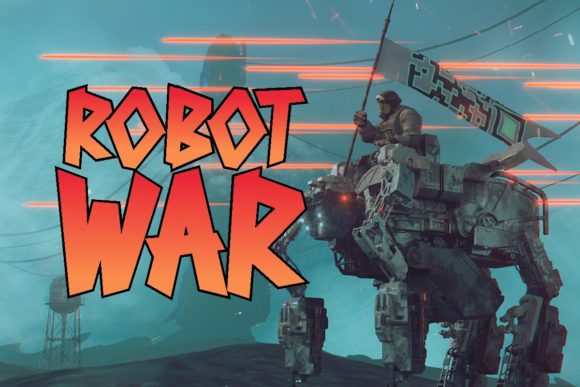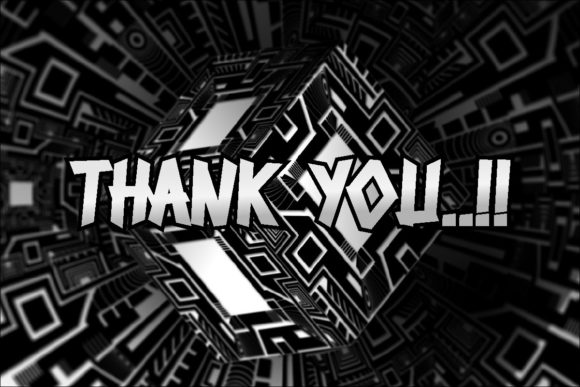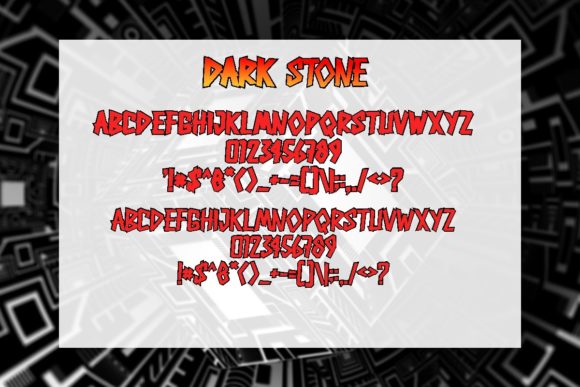
Unleash Your Creativity with Dark Stone Font: A Bold and Thick Lettered Display Font
Are you a designer or crafter looking for a font that can add a touch of boldness and thickness to your designs? Look no further than the Dark Stone Font. This display font is perfect for creating eye-catching designs that demand attention. In this article, we’ll explore the features and benefits of Dark Stone Font, and how it can elevate your designs to the next level.
What is Dark Stone Font?
Dark Stone Font is a bold and thick lettered display font that is designed to make a statement. Its sturdy and robust letterforms make it perfect for designs that require a strong and confident look. Whether you’re creating a logo, advertisement, or t-shirt design, Dark Stone Font is sure to grab attention and leave a lasting impression.
Key Features of Dark Stone Font
- Bold and Thick Letterforms: Dark Stone Font features bold and thick letterforms that are designed to stand out. Its sturdy and robust design makes it perfect for creating eye-catching designs.
- Versatile: Dark Stone Font is a versatile font that can be used for a wide range of designs, including t-shirts, sportswear, logos, advertisements, clothing, and more.
- Easily Readable: Despite its bold and thick design, Dark Stone Font is easily readable, making it perfect for designs that require a clear and concise message.
- Unique and Distinctive: Dark Stone Font has a unique and distinctive look that sets it apart from other fonts. Its bold and thick letterforms make it perfect for creating designs that demand attention.
Benefits of Using Dark Stone Font
So, why should you use Dark Stone Font for your designs? Here are just a few benefits of using this amazing font:
- Grabs Attention: Dark Stone Font is designed to grab attention and make a statement. Its bold and thick letterforms ensure that your designs stand out from the crowd.
- Perfect for Bold Designs: If you’re looking to create bold and eye-catching designs, Dark Stone Font is the perfect choice. Its sturdy and robust design makes it perfect for designs that require a strong and confident look.
- Increases Brand Visibility: By using Dark Stone Font, you can increase brand visibility and create a lasting impression on your target audience.
- Easy to Use: Dark Stone Font is easy to use and can be easily integrated into your designs. Its simplicity and versatility make it perfect for designers and crafters of all levels.
Design Ideas Using Dark Stone Font
So, how can you use Dark Stone Font in your designs? Here are just a few ideas to get you started:
- T-Shirt Designs: Dark Stone Font is perfect for creating bold and eye-catching t-shirt designs. Its sturdy and robust design makes it perfect for creating designs that demand attention.
- Logo Designs: If you’re looking to create a bold and confident logo, Dark Stone Font is the perfect choice. Its bold and thick letterforms make it perfect for creating logos that stand out.
- Advertisements: Dark Stone Font is perfect for creating eye-catching advertisements that demand attention. Its bold and thick design makes it perfect for creating ads that grab attention and leave a lasting impression.
- Sportswear Designs: Dark Stone Font is perfect for creating bold and eye-catching sportswear designs. Its sturdy and robust design makes it perfect for creating designs that demand attention.
| Font Name | Dark Stone Font |
| Author | Pidco.art |
In conclusion, Dark Stone Font is a bold and thick lettered display font that is perfect for designers and crafters looking to create eye-catching designs. Its sturdy and robust design makes it perfect for creating designs that demand attention and leave a lasting impression. With its versatility, readability, and unique look, Dark Stone Font is the perfect choice for a wide range of designs, including t-shirts, sportswear, logos, advertisements, clothing, and more.